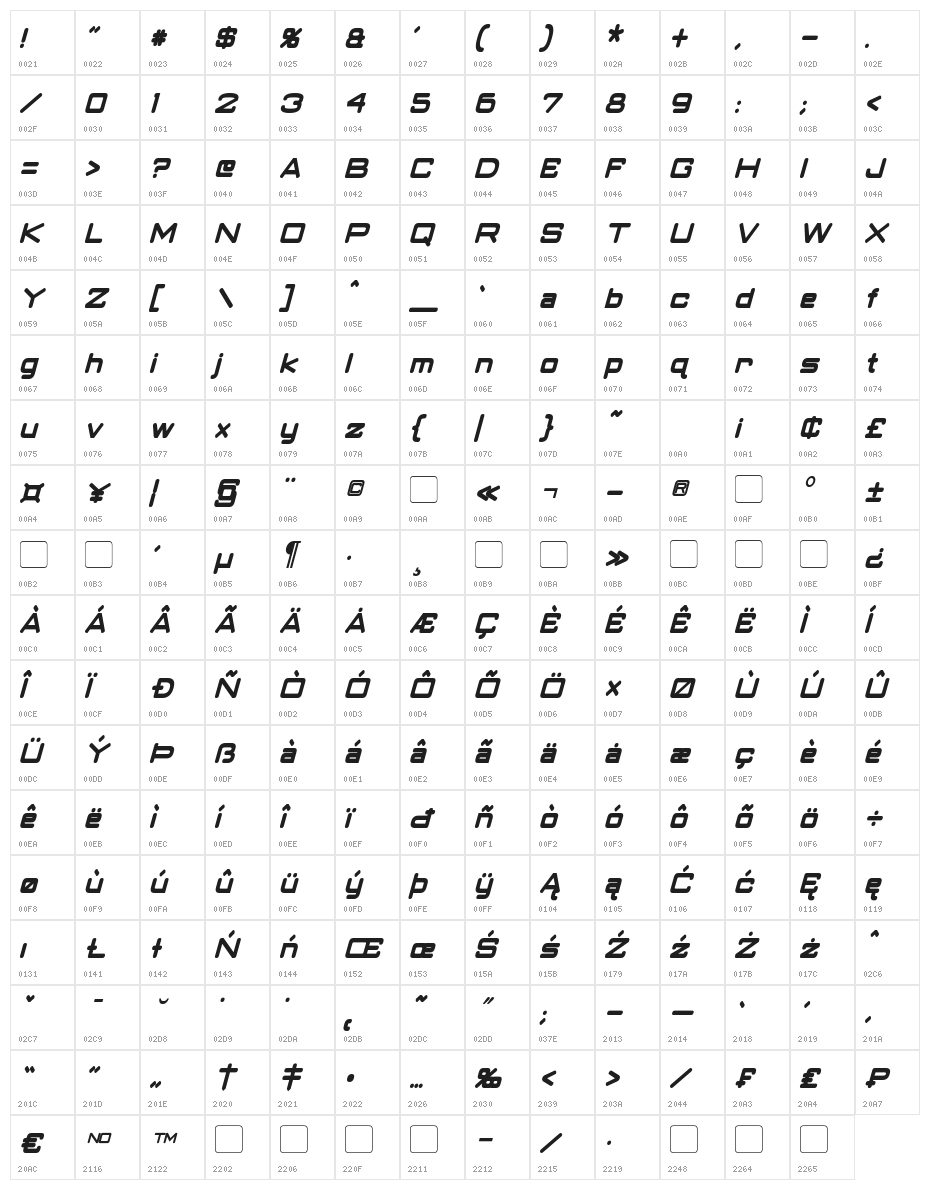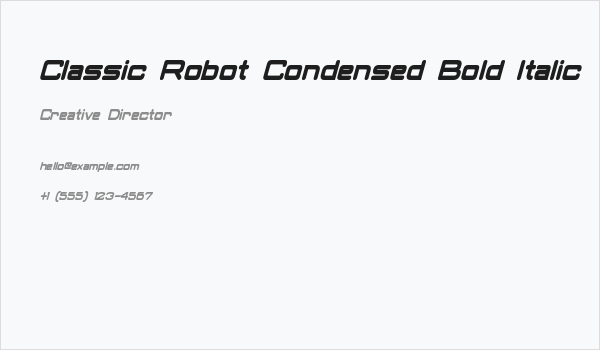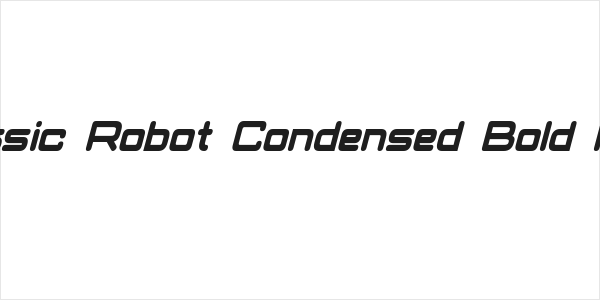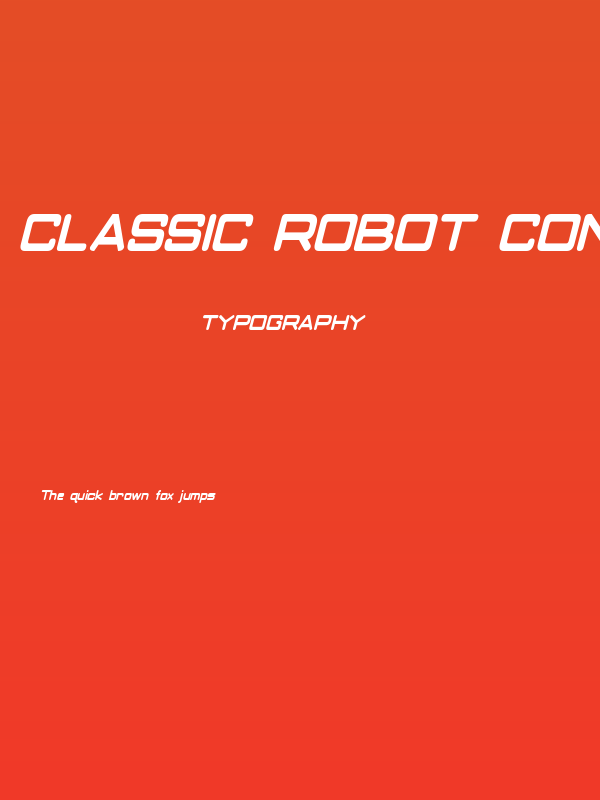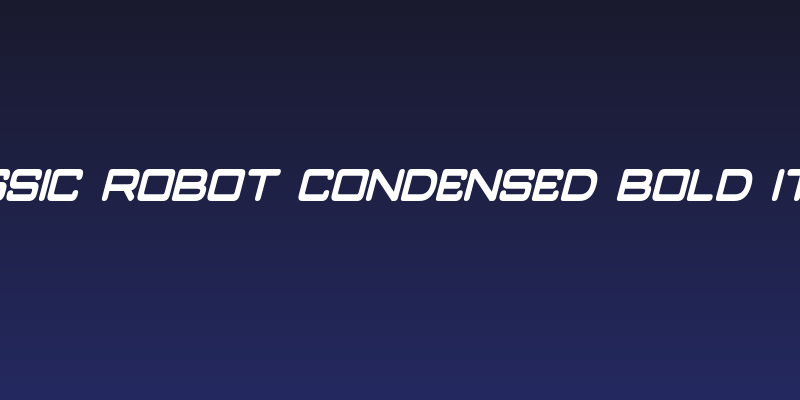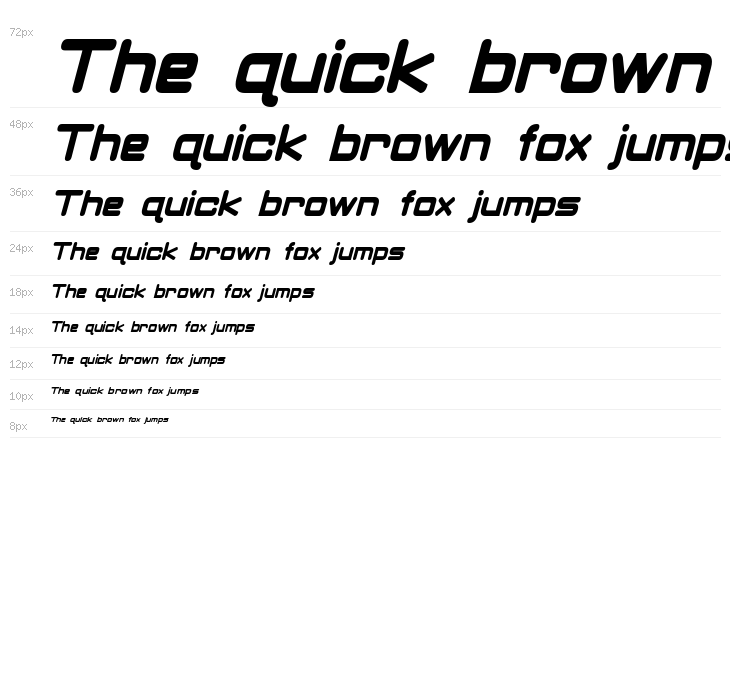
Classic Robot Condensed Bold Italic Font
Classic Robot Condensed Bold Italic Description
This font features a futuristic and sleek design, characterized by its bold and italicized style. The condensed letterforms give it a compact appearance, making it ideal for space-saving applications. The rounded edges and smooth curves add a modern touch, while the consistent stroke width maintains readability. Its geometric structure and slightly slanted posture convey a sense of motion and dynamism, making it suitable for tech-oriented projects. The font includes a full set of uppercase and lowercase letters, numerals, and a variety of special characters, ensuring versatility in design applications.
| Use Case | Headlines, Logos, Tech Interfaces |
| Proposed Projects | Ideal for tech branding, futuristic posters, video game interfaces, and sci-fi themed projects. |